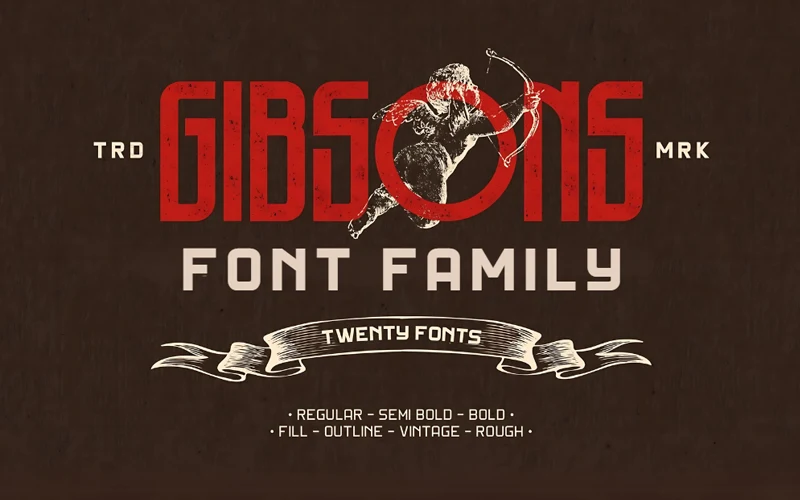
Gibsons Font Family — Stylish Typographical Designs
Step into a world where typography meets style. The Gibsons Font Family is a versatile collection of clean, characterful display fonts built for branding, advertising, posters, packaging, invitations and any project that needs confident typographic presence.
- Two complementary typefaces: Gibsons 01 (Tall) and Gibsons 02 (Short)
- Gibsons 01: Regular, Semi‑Bold, Bold
- Gibsons 02: Regular, Bold
- Three weights: Regular, Semi‑Bold, Bold (as above per typeface)
- Four styles for each weight: Fill, Outline, Vintage (Rough Edge), Rough (Textured)
- Alternate characters for extra stylistic variety
Key features
- Clean, modern display fonts with strong stylistic options
- Easy to customize and scale for print or digital use
- Great for logos, banners, posters, social media, packaging, and more
- Includes alternate glyphs to give your layouts a unique look